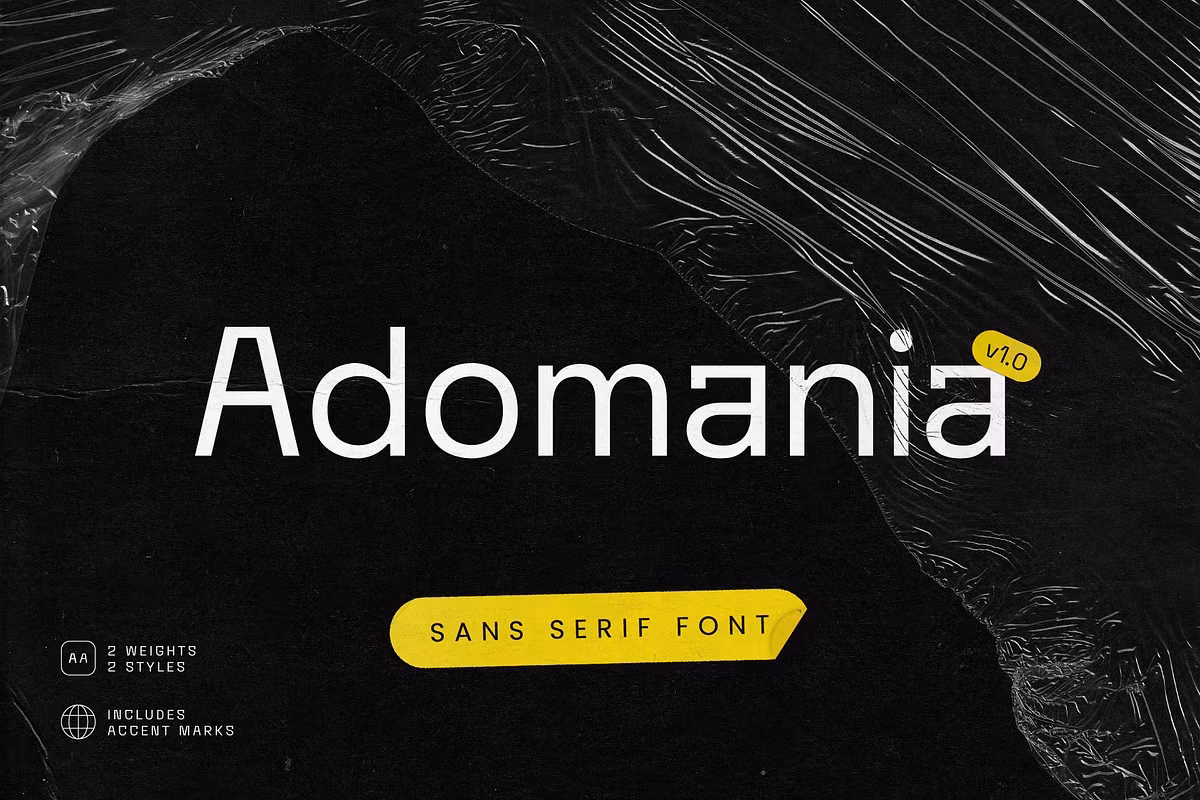
Adomania | Sans Serif Font Free Download
Stylish, minimal, and confidently modern, Adomania | Sans Serif Font Free Download is a clean typeface designed to bring clarity and elegance to your projects. With its sharp edges, smooth geometry, and balanced proportions, this font is ideal for branding, headlines, editorial layouts, web design, and tech-forward visuals.
Adomania strikes the perfect balance between functionality and personality—delivering a professional tone while maintaining a sleek, distinctive style. It works beautifully in both large display sizes and smaller text, making it a versatile choice for creatives and designers alike.